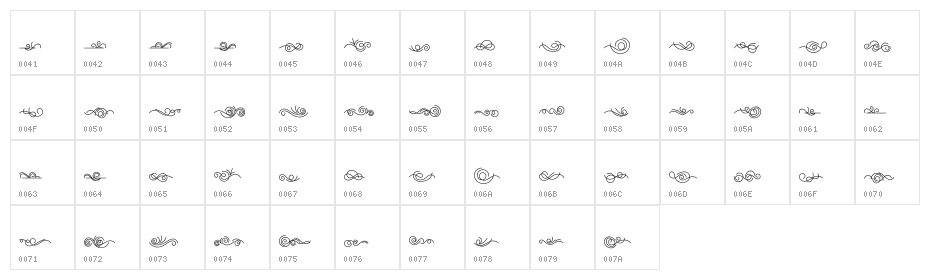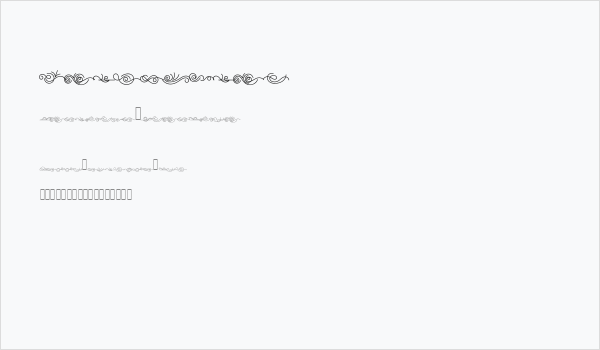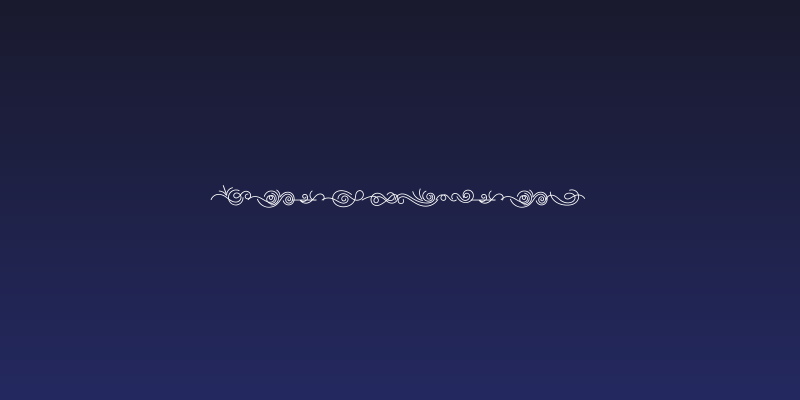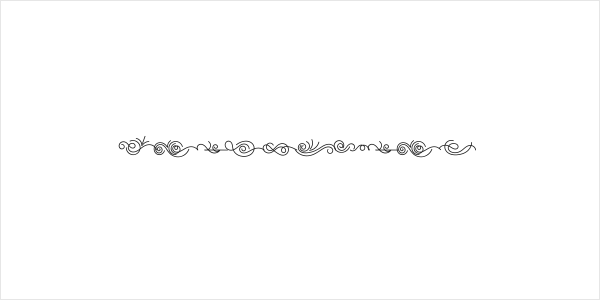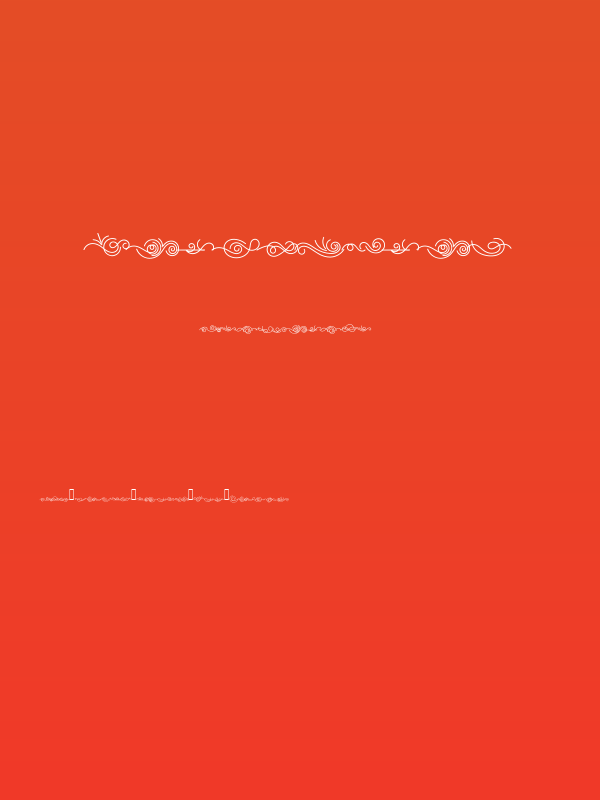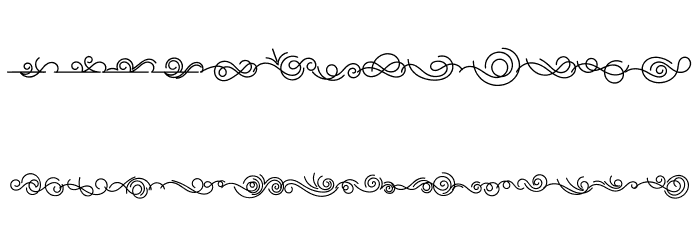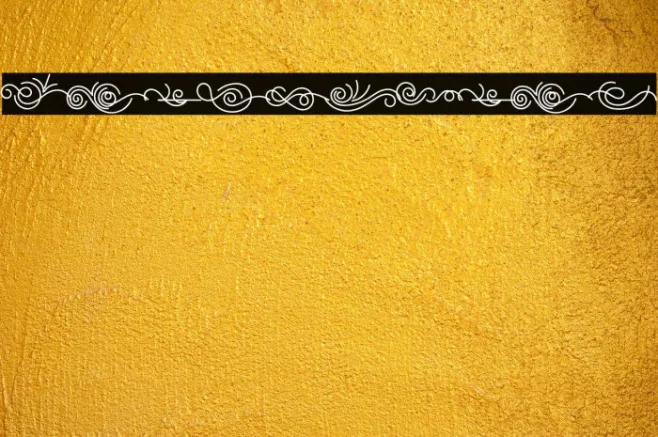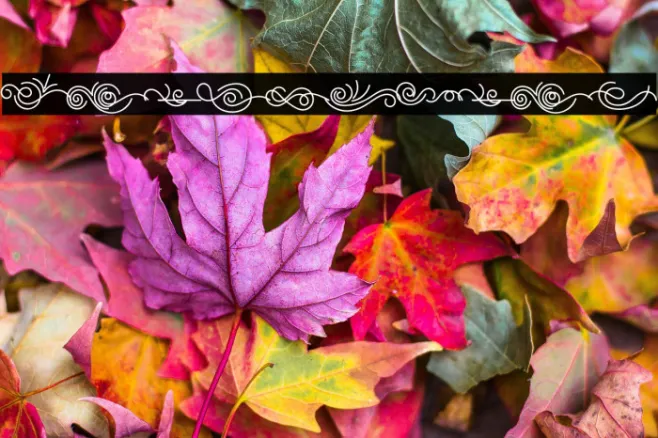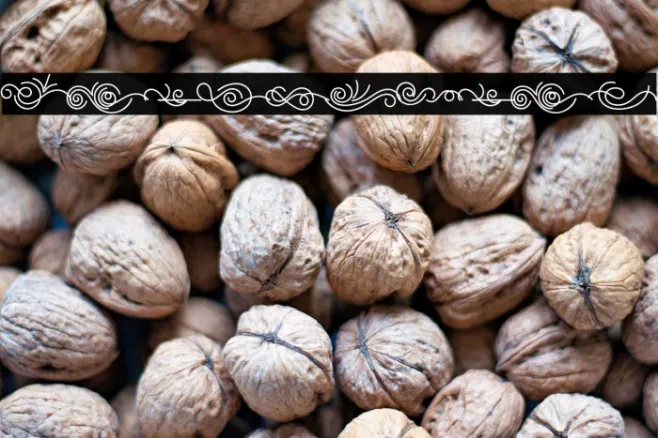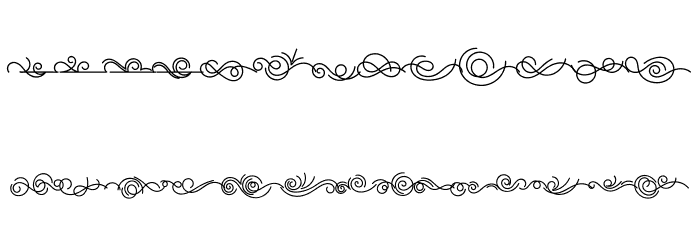
frameswari Font
frameswari Description
A set of ornate, swirling decorative line frames featuring intricate curls and loops, reminiscent of vintage or Victorian embellishments. These are not alphanumeric characters but rather ornamental dividers.
| Overall Style | Decorative, Vintage |
| Use Case | Borders, Dividers, Frames |
| Proposed Projects | Wedding invitations, certificates, greeting cards, vintage-themed designs, decorative borders. |